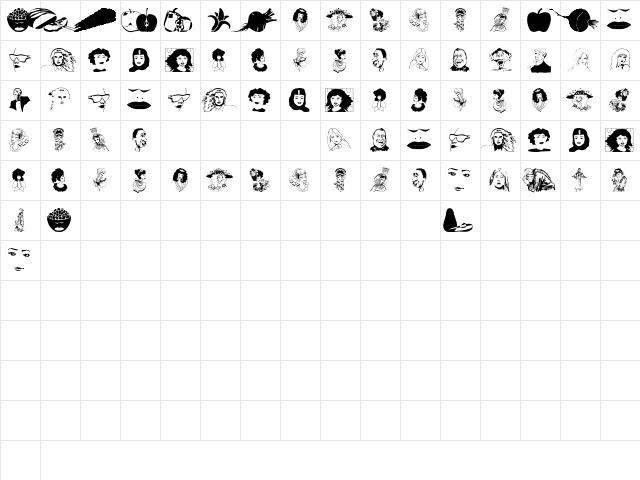
Complete TestroomTwo Regular glyph index. Displaying only characters natively supported by TestroomTwo Regular font.
TestroomTwo is a composed and adaptable typeface that performs quietly and consistently across a wide range of design contexts.